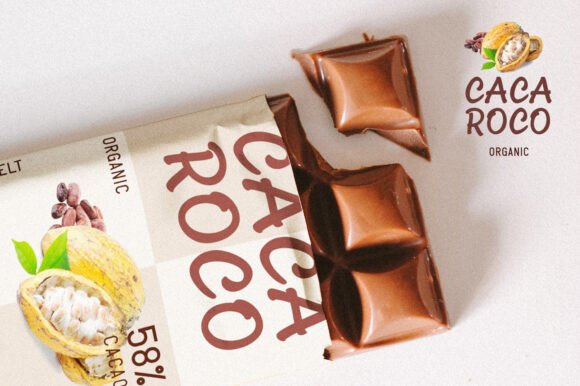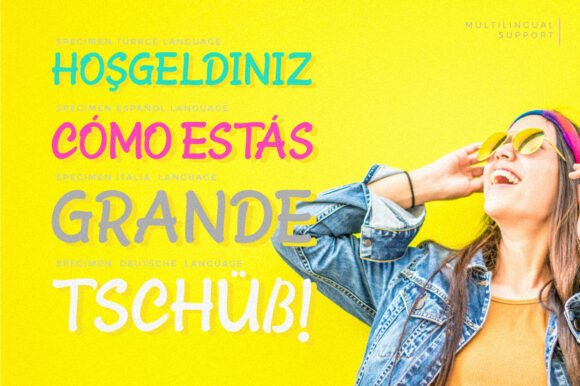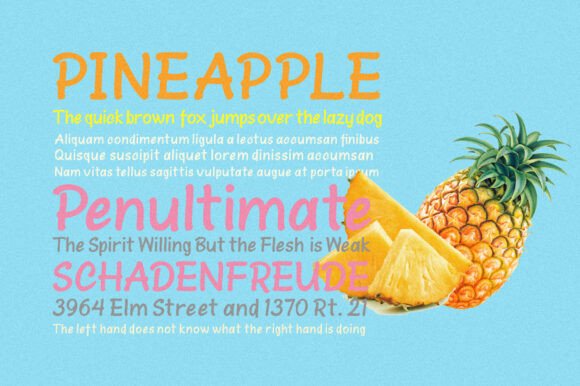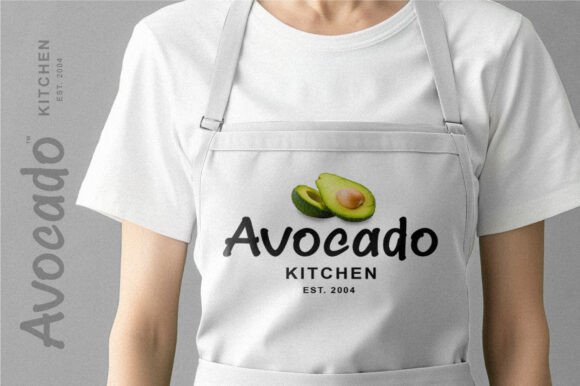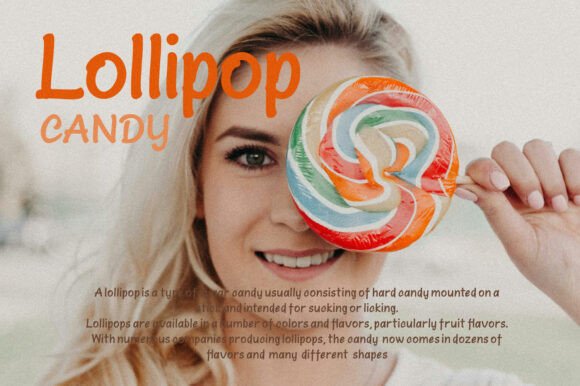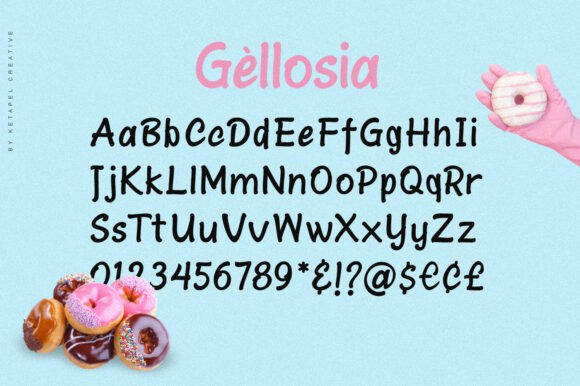
Introduction to Gellosia Font
Have you ever stared at a blank page, waiting for the perfect font to spark your creativity? I know I have. It’s that moment when a great font can make all the difference between a good design and a truly amazing one. For me, it was the discovery of Gellosia Font that changed everything.
This charming sans serif font has a whimsical, handwritten feel that instantly adds a personal touch to any design project. With its high-quality design and transparent background, Gellosia Font is the perfect resource for designers looking to elevate their creative projects.
Key Features of Gellosia Font
- Unique, hand-drawn style with a transparent background for versatility
- Perfect for designers and artists looking for a distinctive, creative font
Honest Review: Gellosia Font
I recently had the chance to work with the Gellosia Font for a creative project, and I must say it was a great experience. The font’s high quality and unique style made it a perfect fit for my design needs.
- ✨ What works well: The Gellosia Font has a very distinctive and elegant design, making it ideal for various creative projects. I loved its versatility and the fact that it’s a free download, making it a great design resource for anyone.
- ✨ The font also comes with a transparent background, which is perfect for designers who need to overlay text on images or other backgrounds.
However, I did encounter a few limitations while using the Gellosia Font.
Overall, I was impressed with the Gellosia Font’s quality and design. While it has some limitations, it’s still a great design resource that’s definitely worth checking out.
Tips for Getting the Most Out of Gellosia Font
For a creative project, use Gellosia Font in conjunction with other design resources to create a cohesive look. Experiment with different font sizes, colors, and styles to add visual interest to your design.
Gellosia Font is a versatile design resource that can be used for a variety of purposes, including logos, headings, and body text. It’s also a great choice for free download and use in your design projects.